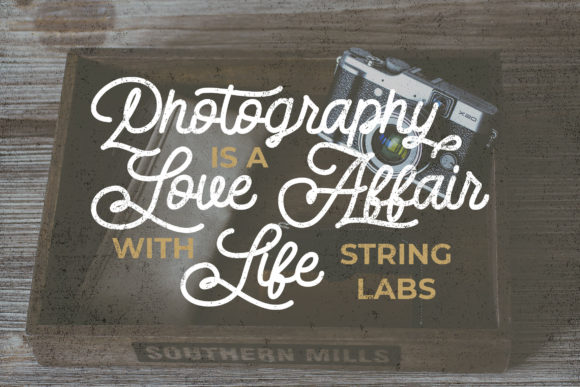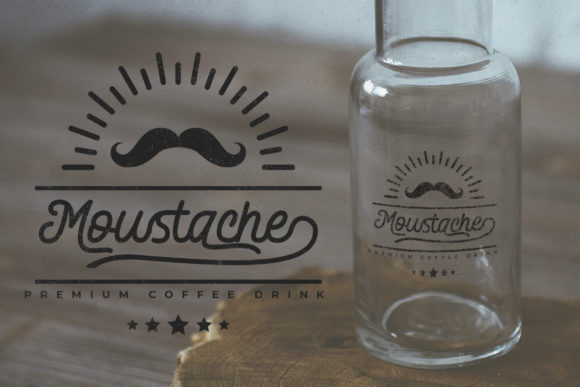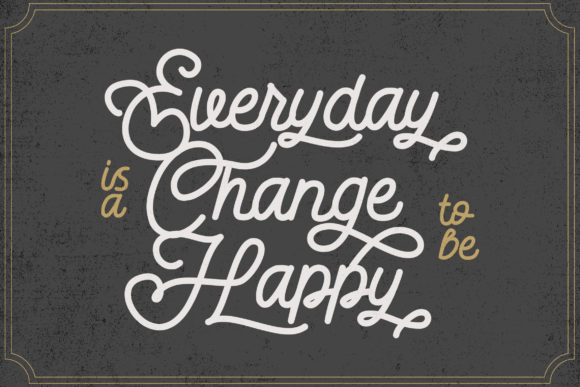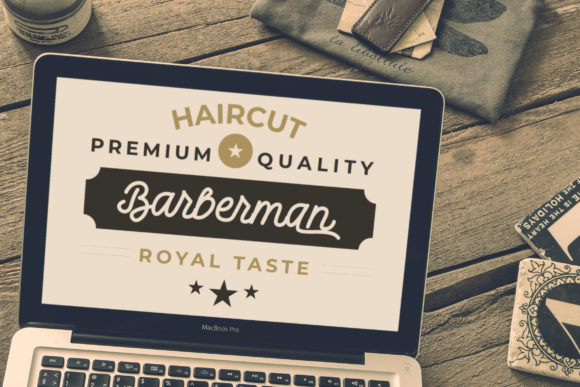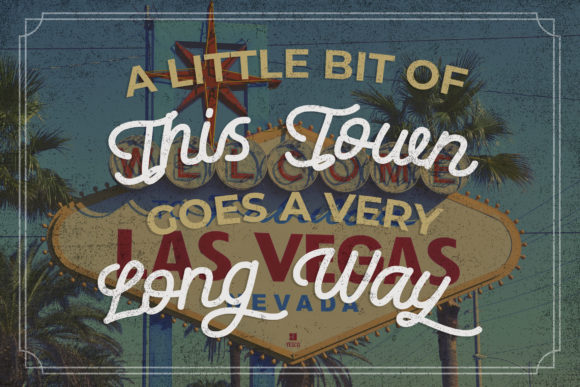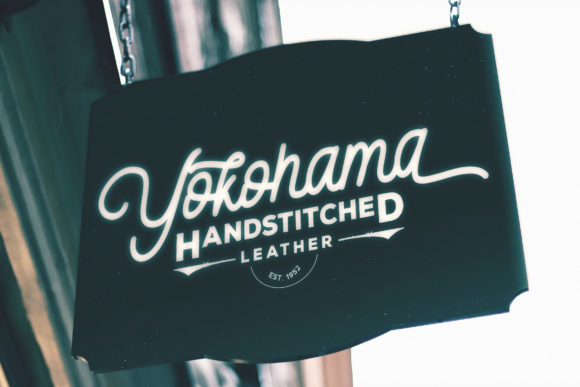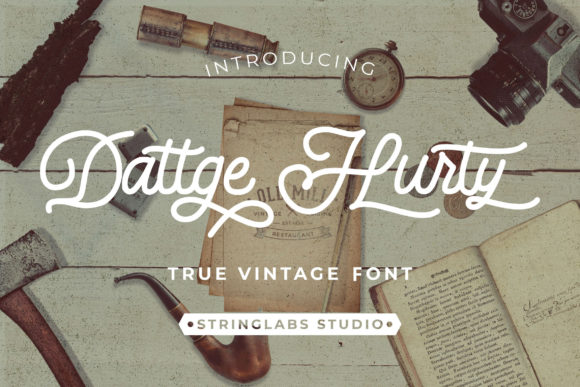
Dattge Hurty Font: The Ultimate Friendly Handwritten Font for Creative Projects
Are you a designer, crafter, or DIY enthusiast looking for a font that can add a touch of personality to your creative projects? Look no further than the Dattge Hurty font! This cute and casual handwritten font is designed to bring a friendly feel to any design, making it perfect for a wide range of applications, from social media graphics to calligraphy scripts.
What Makes Dattge Hurty Font So Special?
Dattge Hurty is more than just a font – it’s an experience. With its gorgeous swashes and ligatures, this script font is incredibly versatile and can be used to create a wide range of designs, from elegant and sophisticated to playful and whimsical. Whether you’re looking to create stunning Instagram graphics, beautiful calligraphy scripts, or unique DIY projects, Dattge Hurty is the perfect choice.
Key Features of Dattge Hurty Font
- Cute and Casual Handwritten Style: Dattge Hurty features a friendly and approachable handwritten style that’s perfect for creating designs that feel personal and relatable.
- Gorgeous Swashes and Ligatures: The font includes a range of beautiful swashes and ligatures that can be used to add a touch of elegance and sophistication to any design.
- Incredibly Versatile: Whether you’re creating social media graphics, calligraphy scripts, or DIY projects, Dattge Hurty is the perfect choice.
How to Use Dattge Hurty Font in Your Designs
Using Dattge Hurty in your designs is easy! Here are a few ideas to get you started:
- Instagram Graphics: Use Dattge Hurty to create stunning Instagram graphics that showcase your personality and style.
- Calligraphy Scripts: Create beautiful calligraphy scripts for special occasions, such as weddings, birthdays, and holidays.
- DIY Projects: Use Dattge Hurty to add a personal touch to your DIY projects, such as handmade cards, gift tags, and decorations.
Benefits of Using Dattge Hurty Font
There are many benefits to using Dattge Hurty in your designs. Here are a few:
- Adds Personality to Your Designs: Dattge Hurty is a unique and distinctive font that can add a touch of personality to any design.
- Easy to Read: The font is clear and easy to read, making it perfect for designs that require a high level of legibility.
- Versatile: Dattge Hurty can be used in a wide range of designs, from formal to informal.